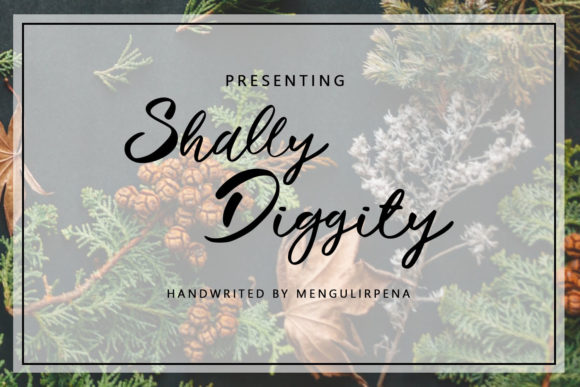
Unleash the charm and elegance of your creative designs with Shally Diggity, the captivating script font that weaves a tapestry of sophistication and style. A creation of MengulirPena, this font exudes a timeless appeal, adding a touch of class and grace to your projects.
Delve into the realm of endless possibilities with Shally Diggity. Its meticulously crafted characters dance across the screen, perfectly suited for watermarks, photography, signatures, logos, album covers, business cards, quotes, and a myriad of other design endeavors. Let your imagination soar as you transform ordinary words into captivating expressions of art.
Shally Diggity's allure lies in its versatility, effortlessly adapting to a symphony of design aesthetics. Whether you seek a classic, vintage charm or a modern, minimalist flair, this font seamlessly blends with your vision, adding a touch of elegance that captivates and inspires.
Immerse yourself in the beauty of Shally Diggity's intricate details. Each letter, meticulously designed, carries a story, evoking emotions and creating a lasting impression. Its graceful curves and delicate flourishes dance harmoniously, adding a touch of magic to your designs.
With Shally Diggity, elevate your designs to new heights, capturing the attention of your audience and leaving a lasting impression. Its timeless beauty and versatility make it the perfect choice for designers seeking to create captivating and memorable projects. Experience the transformative power of Shally Diggity today and let your creativity flourish.